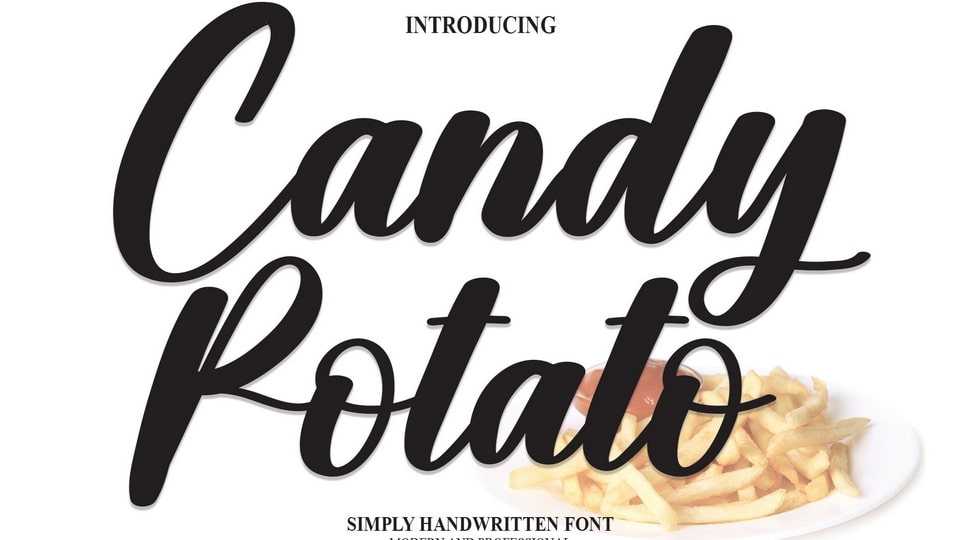
Download Candy Potato font, a simple and natural handwritten script typeface. Modern and elegant, Candy Potato font is made of beautiful creative strokes.